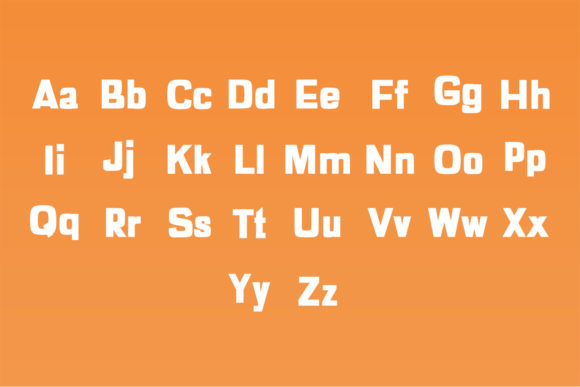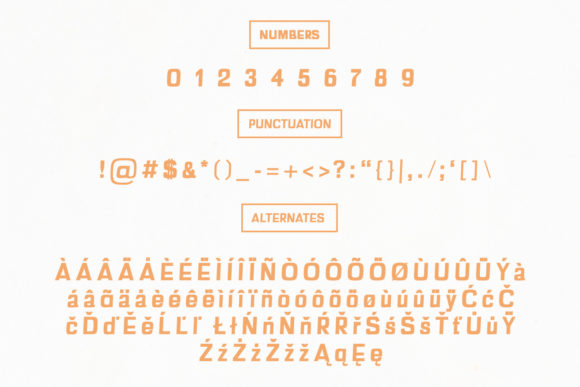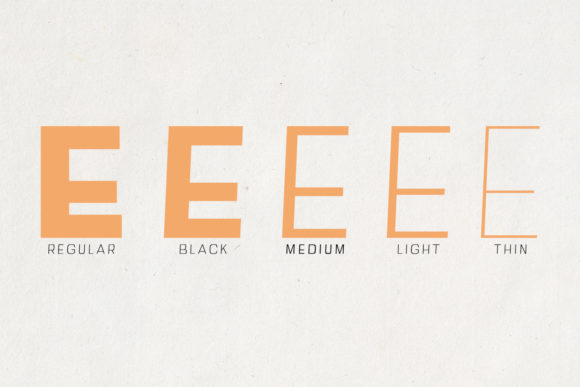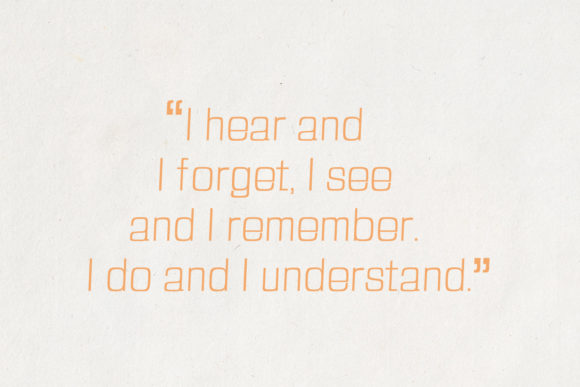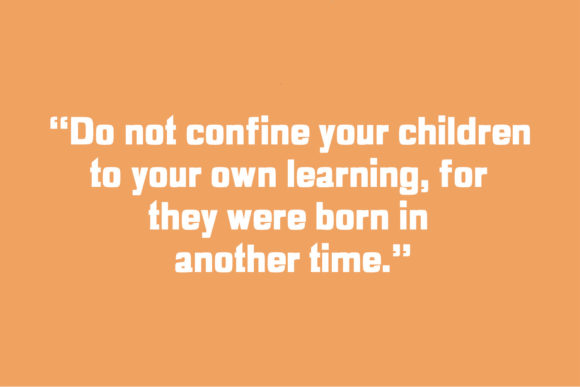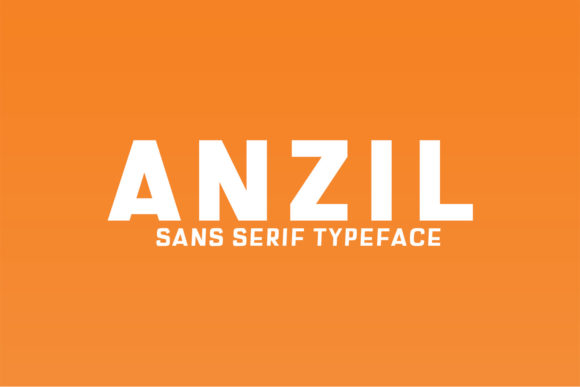
Introducing Anzil Family Font: The Bold and Chunky Sans Serif for Creative Projects
Are you tired of using the same old fonts for your creative projects? Look no further! Anzil Family Font is here to take your designs to the next level. This bold and chunky sans serif font family is perfectly suitable for words that need to stand above the background. With its unique and eye-catching style, Anzil is sure to impress.
What Makes Anzil Family Font So Special?
Anzil Family Font is a versatile and modern sans serif font that is designed to make a statement. Its bold and chunky texture makes it perfect for headlines, titles, and any other text that needs to grab attention. The font is clean, crisp, and highly legible, making it easy to read and understand.
Key Features of Anzil Family Font
- Bold and Chunky Texture: Anzil’s bold and chunky texture makes it perfect for creating eye-catching headlines and titles.
- Sans Serif Style: The font’s sans serif style gives it a modern and clean look that’s perfect for creative projects.
- Highly Legible: Anzil is designed to be highly legible, making it easy to read and understand.
- Versatile: The font is versatile and can be used for a wide range of creative projects, from posters and flyers to digital graphics and more.
How to Use Anzil Family Font in Your Creative Projects
Using Anzil Family Font in your creative projects is easy and straightforward. Here are a few tips to get you started:
- Headlines and Titles: Use Anzil for headlines and titles to grab attention and make a statement.
- Posters and Flyers: Anzil is perfect for creating eye-catching posters and flyers that stand out from the crowd.
- Digital Graphics: Use Anzil for digital graphics, such as social media posts and blog headers, to add a bold and modern touch.
- Branding and Identity: Anzil can be used for branding and identity projects, such as logos and business cards, to create a unique and memorable look.
Why Designers and Crafters Love Anzil Family Font
Designers and crafters love Anzil Family Font for its unique and eye-catching style. Here are a few reasons why:
- High-Quality Design: The font is designed to high-quality standards, ensuring that it looks great in any project.
- Versatile: Anzil can be used for a wide range of creative projects, making it a great addition to any designer’s toolkit.
- Unique Style: The font’s bold and chunky texture makes it stand out from other fonts, giving designers and crafters a unique and eye-catching style to work with.